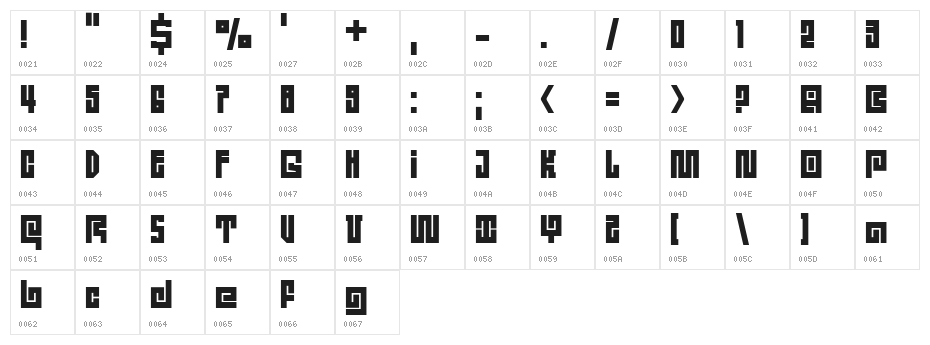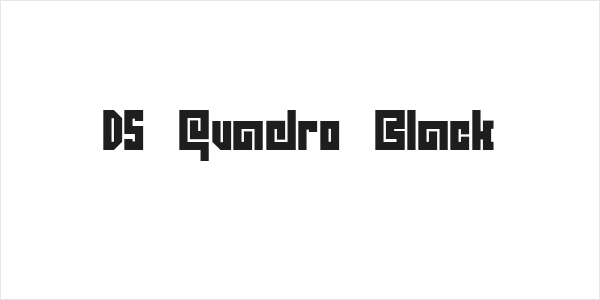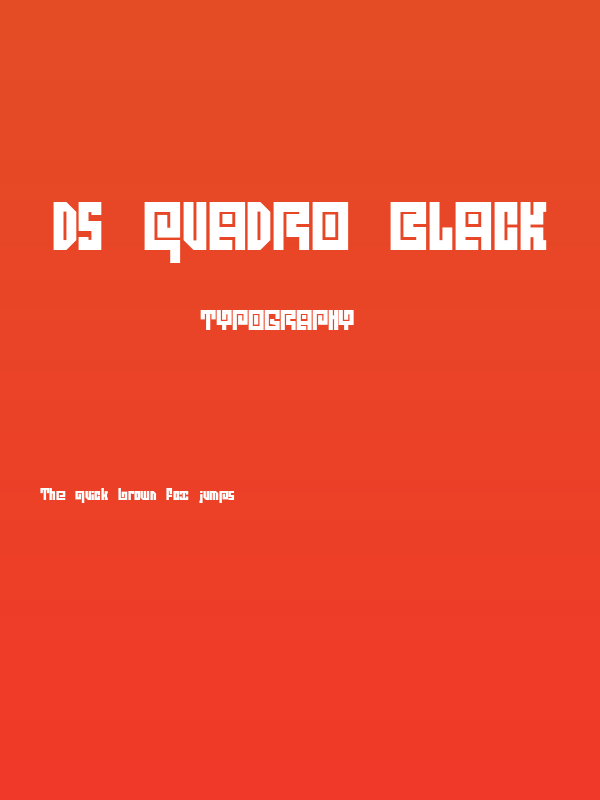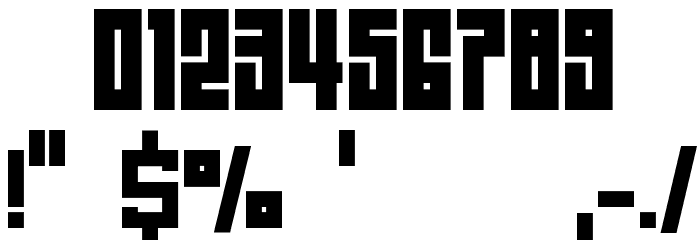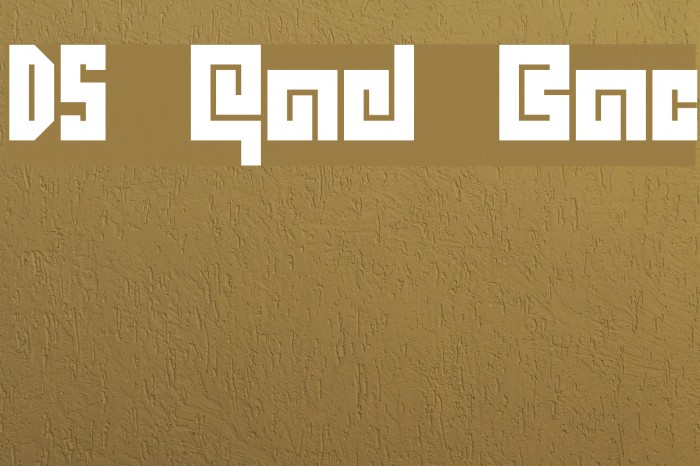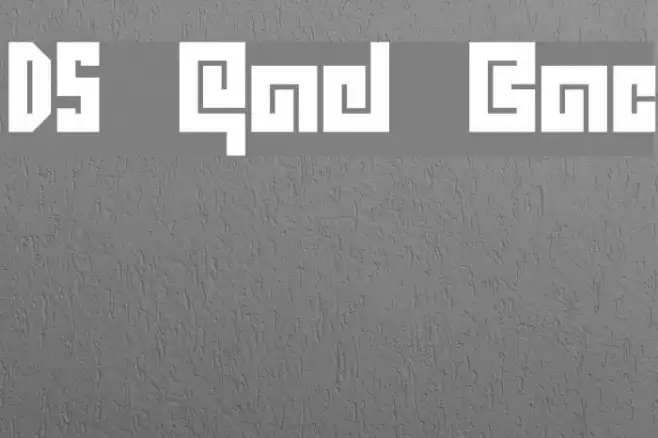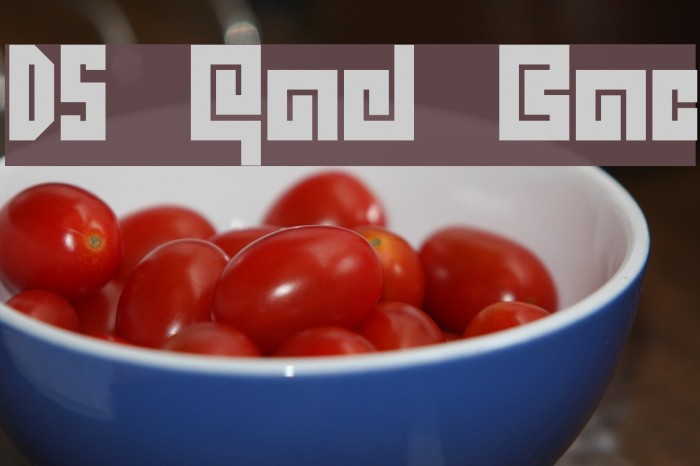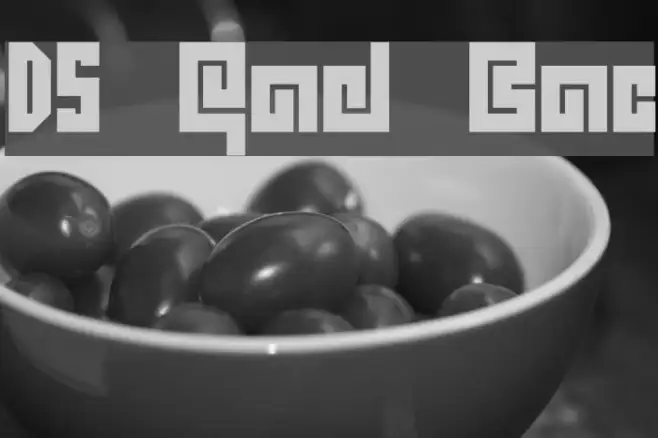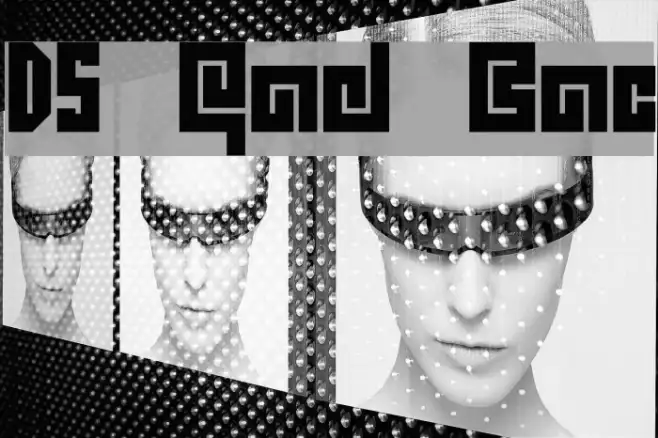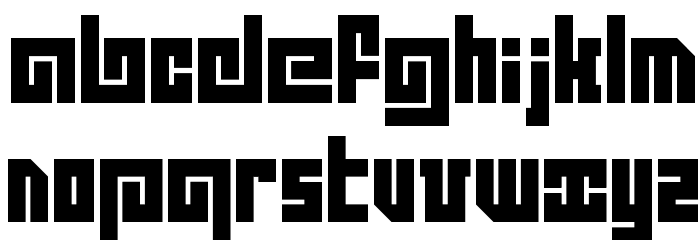
DS Quadro Black Font
DS Quadro Black Description
This font features a bold, geometric design with a strong emphasis on square and rectangular shapes. Each character is constructed with thick, uniform strokes, creating a cohesive and impactful appearance. The uppercase letters are particularly striking, with a blocky, almost futuristic aesthetic. The lowercase letters maintain the same geometric style, ensuring consistency across the typeface. Numbers and special characters are designed to match the boldness and angularity of the alphabet, making this font highly suitable for attention-grabbing designs. Its unique style makes it ideal for projects that require a modern and assertive look.